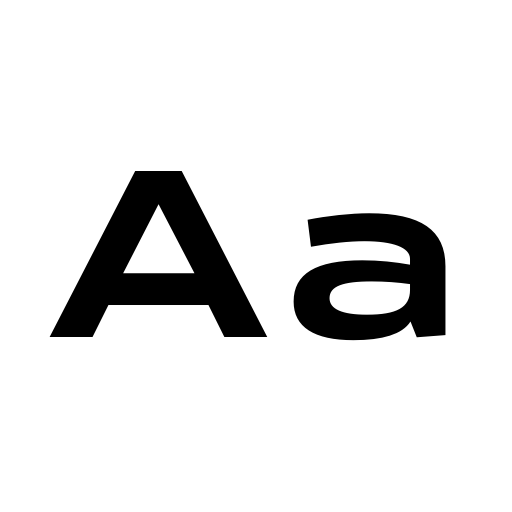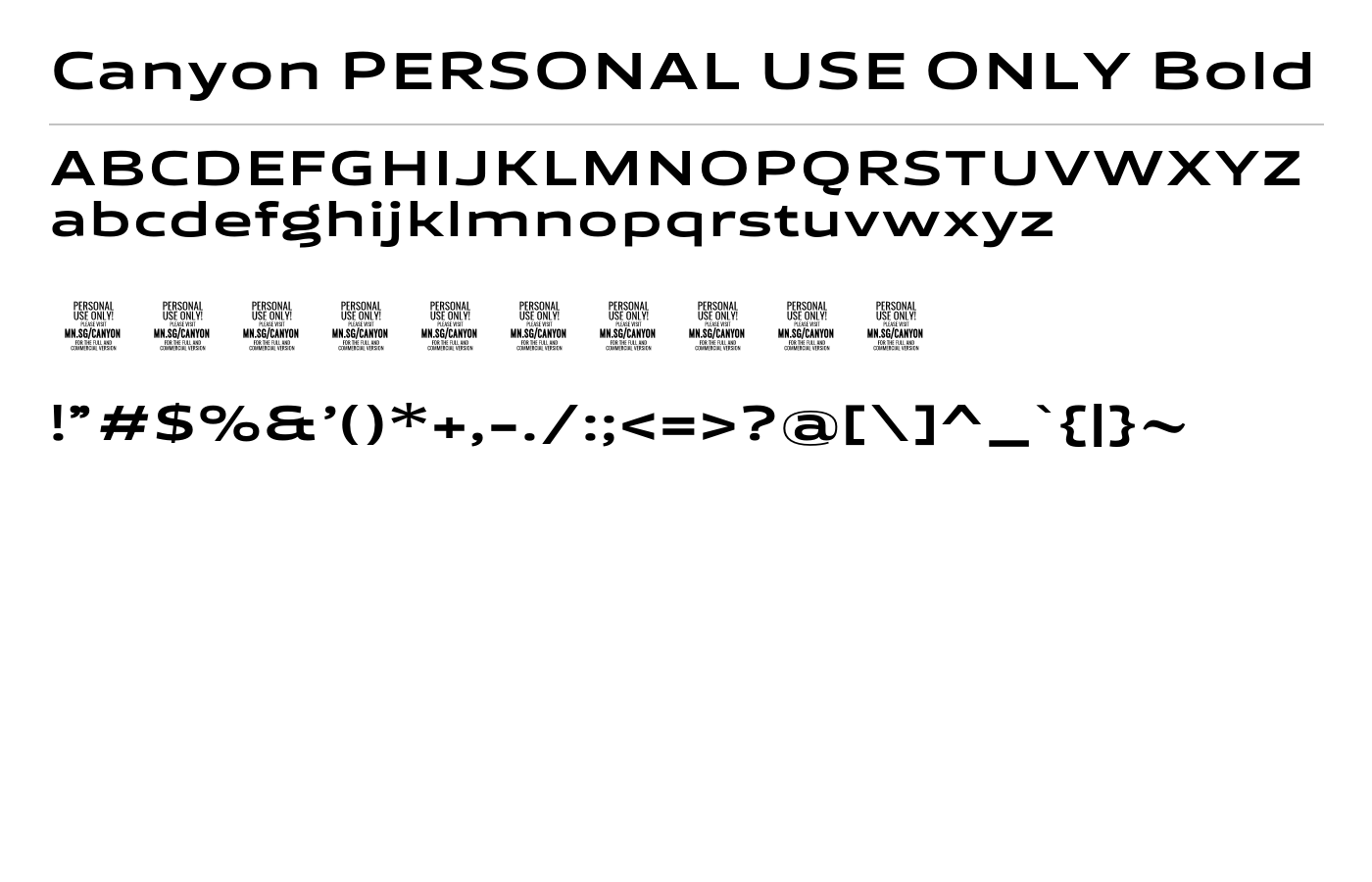
Canyon is a bold, modern sans serif font with a clean and slightly geometric style. Its strong, uniform strokes and balanced letterforms convey a contemporary and professional tone, making it ideal for headlines, branding, and editorial use where clarity and impact are key. This font works well for projects that need a confident yet approachable look, such as corporate identities or cutting-edge design.